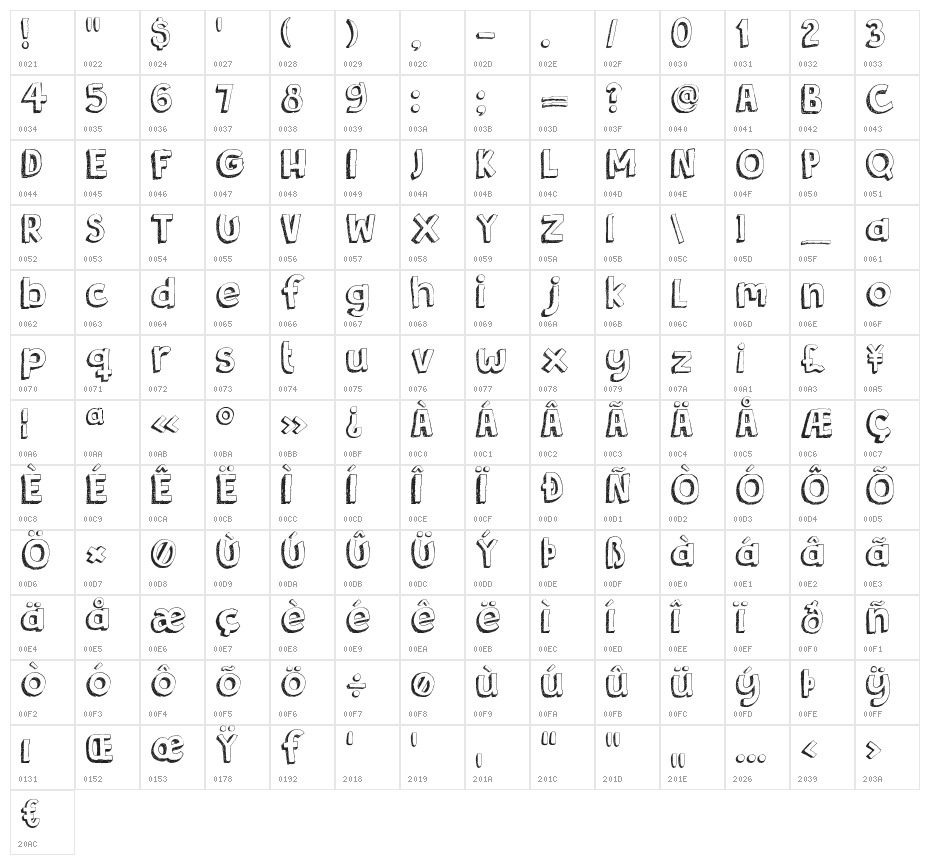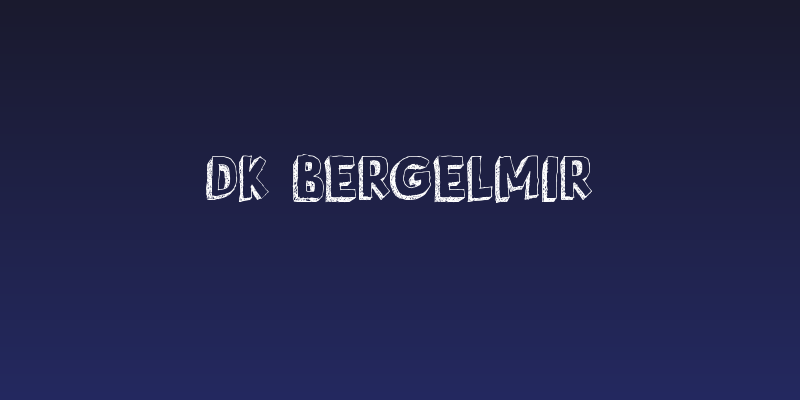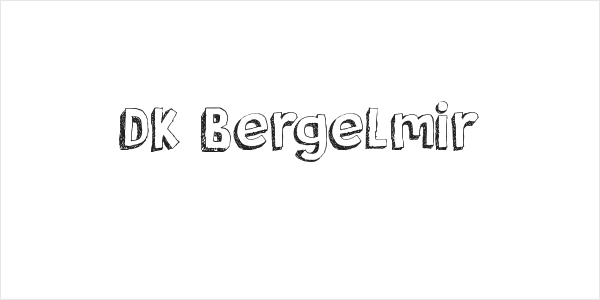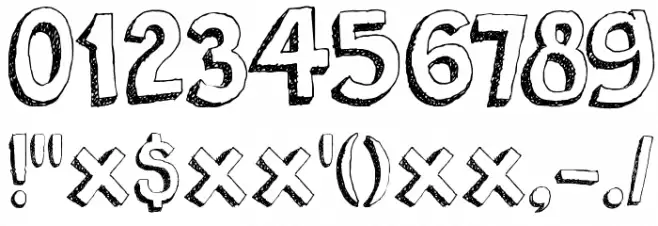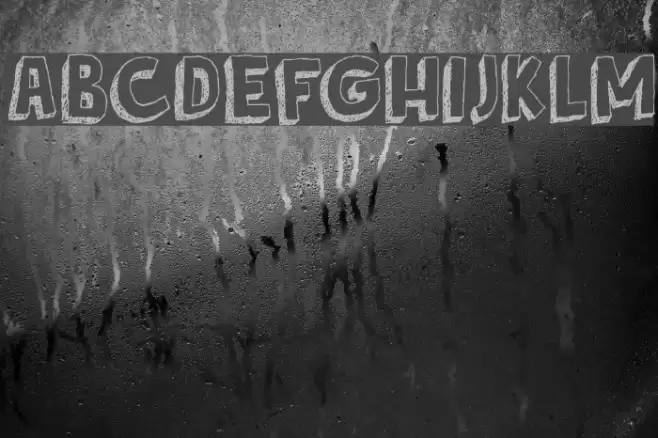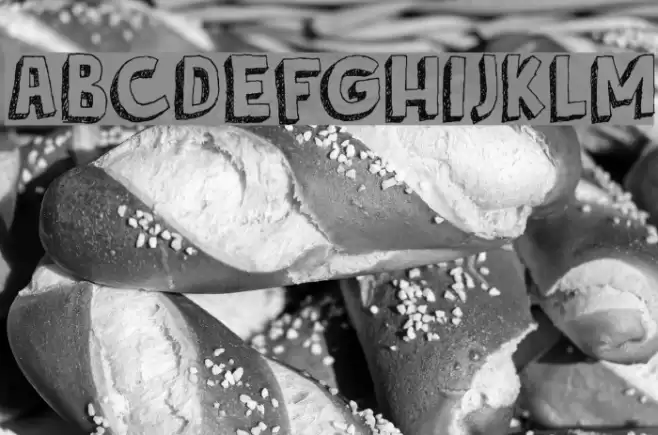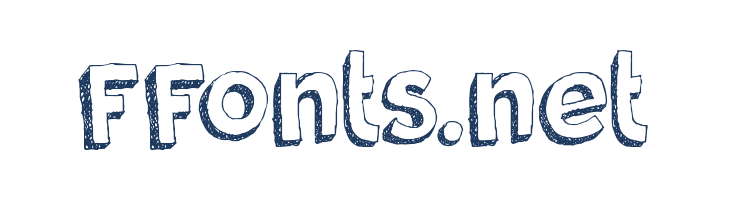
DK Bergelmir Font
DK Bergelmir Description
This font features a bold, playful style with a hand-drawn appearance. The characters are outlined with a textured, sketch-like effect, giving them a dynamic and lively feel. The uppercase and lowercase letters are well-proportioned, maintaining a consistent style throughout. The numbers and special characters follow the same design, ensuring uniformity across all elements. The font's unique texture adds a sense of depth and creativity, making it stand out in various design contexts.
| Overall Style | Playful, Creative |
| Proposed Projects | Ideal for children's books, playful branding, posters, and creative projects that require a fun and engaging typeface. |